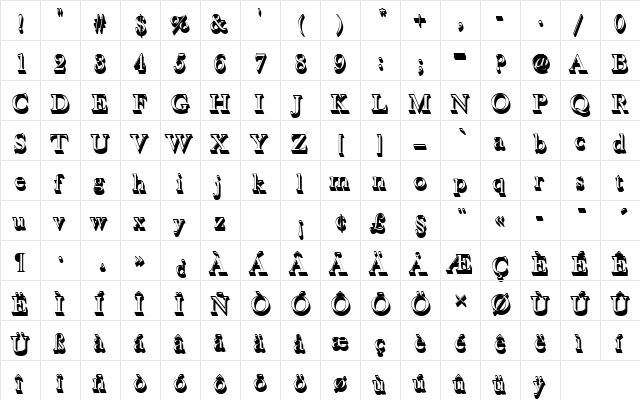
BaskervilleOldFacDSh1 Regular
Design Context for BaskervilleOldFacDSh1 Typeface
BaskervilleOldFacDSh1 offers clean, dependable letterforms without strong stylistic allegiance, making it a practical choice for designers who need flexibility.